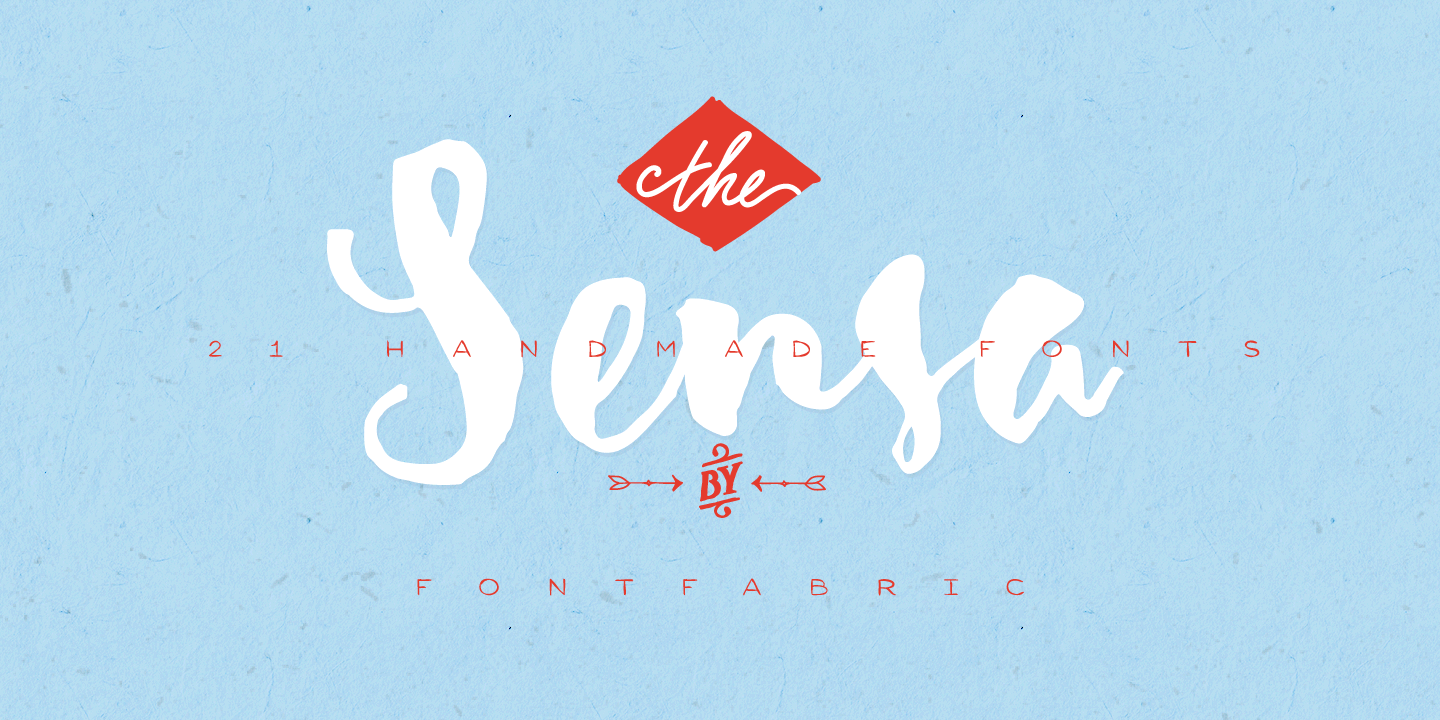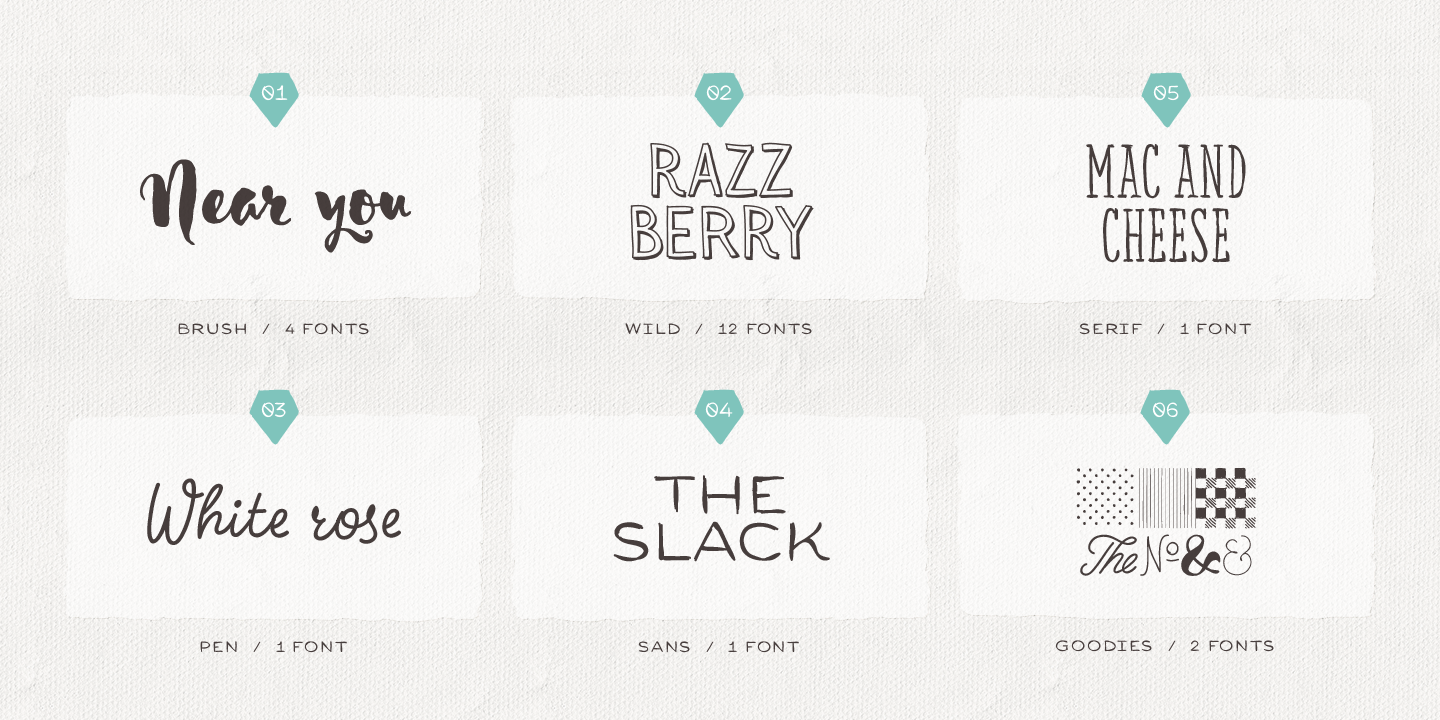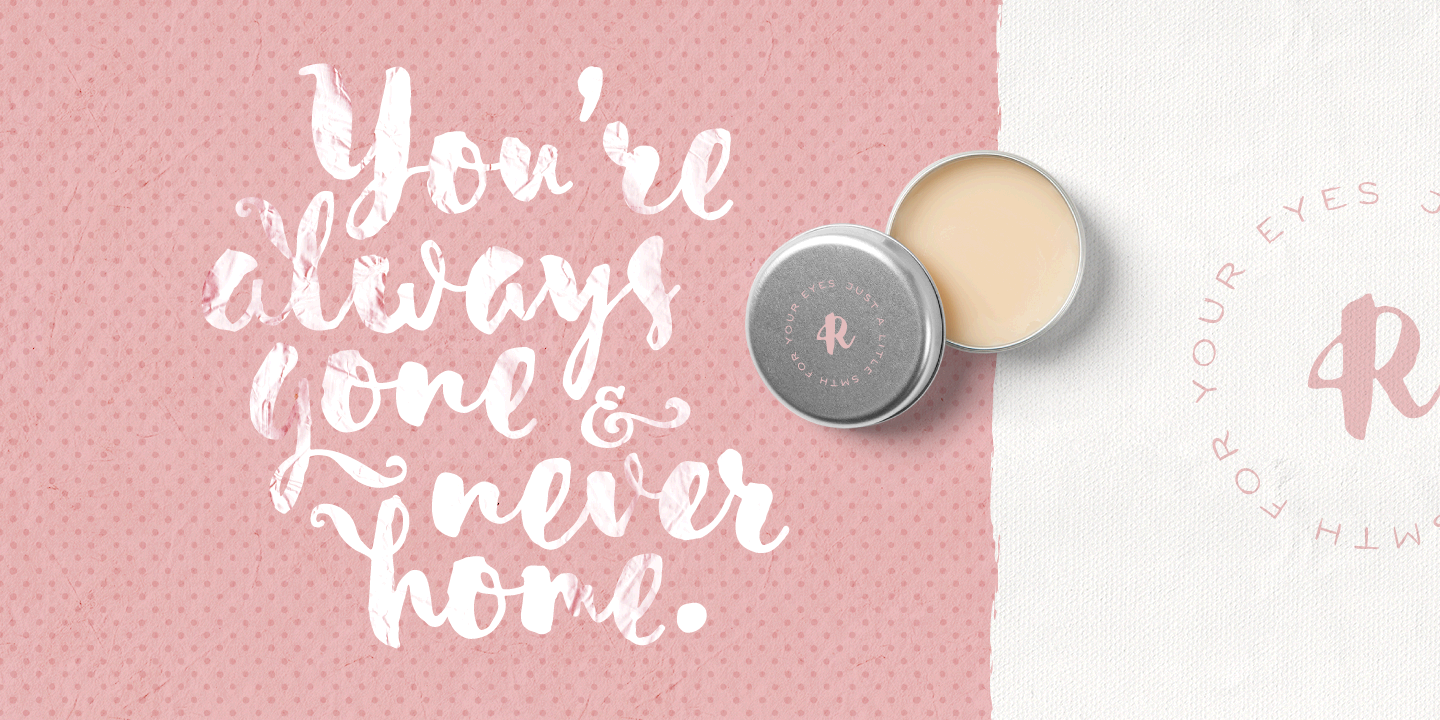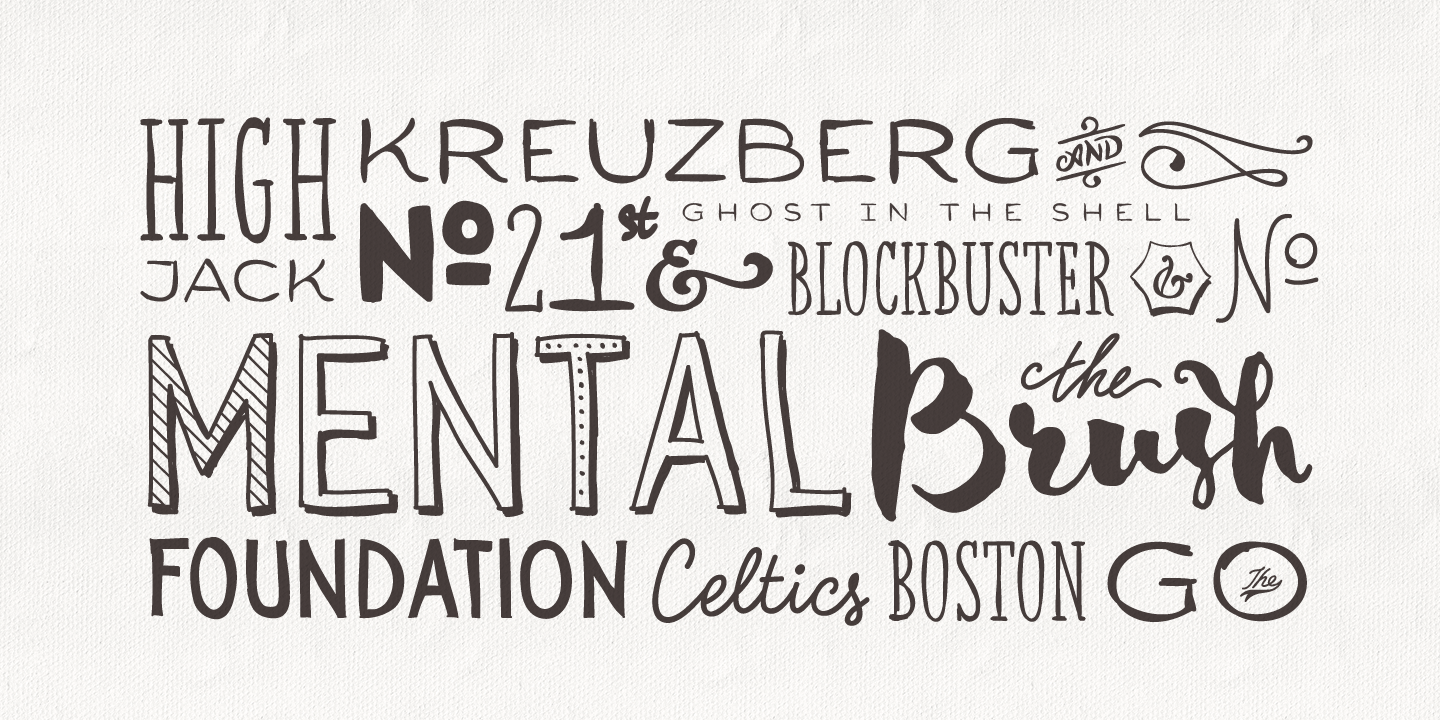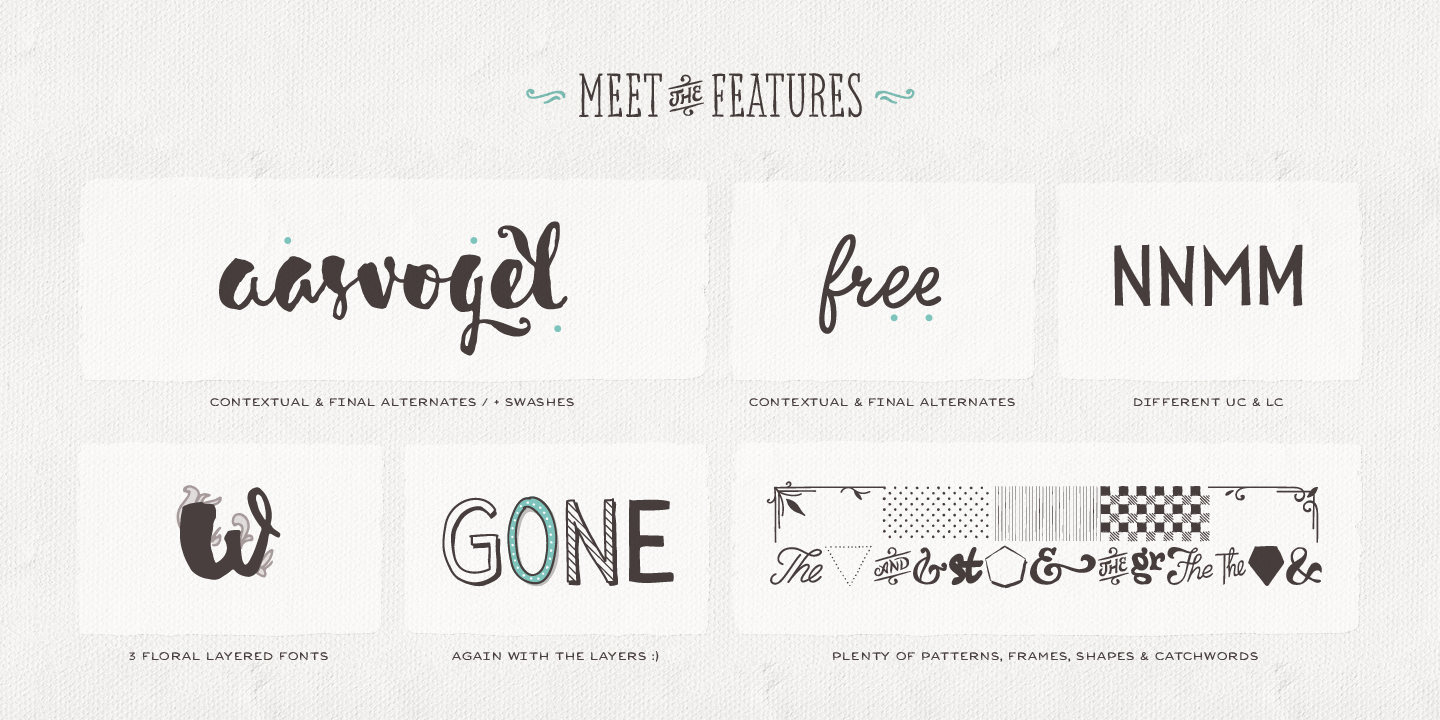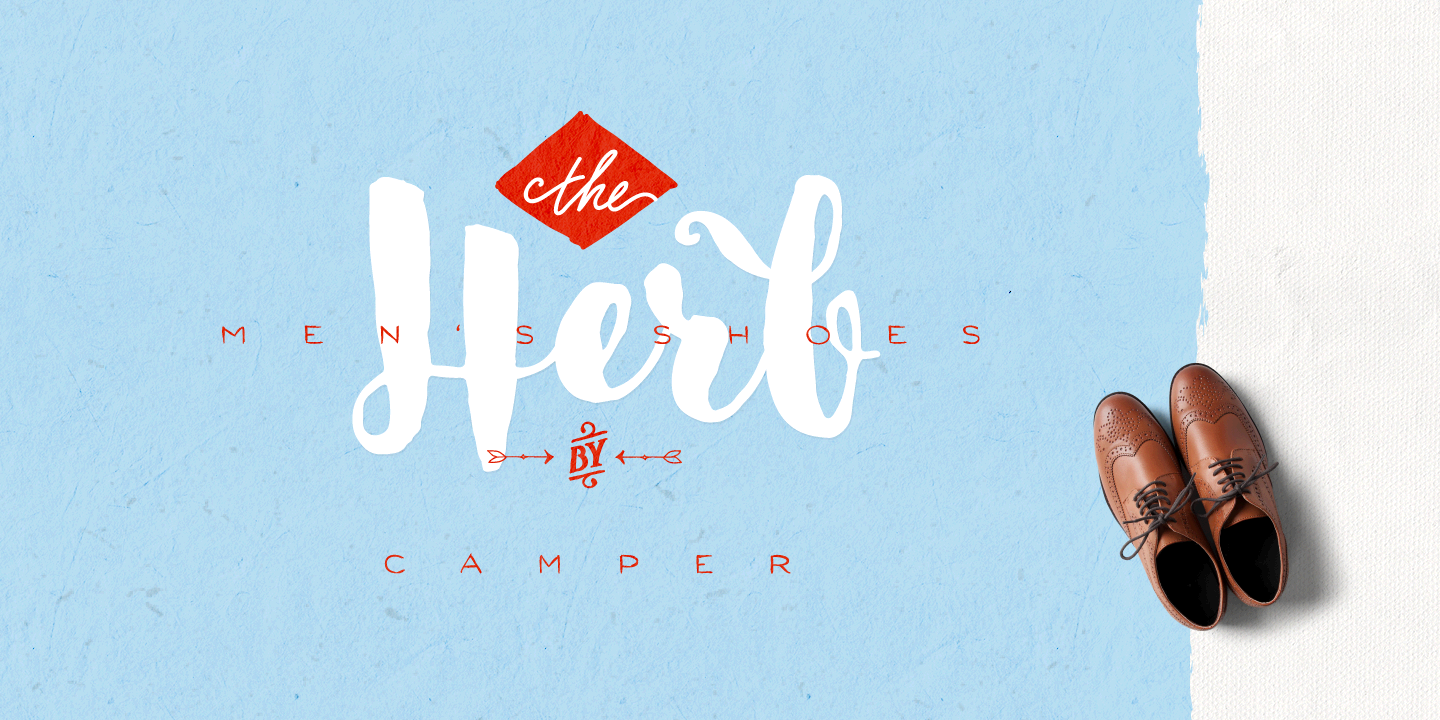
About the Sensa Font
About Sensa Font Family Sensa is a handmade font family consisting of 21 fonts, It is divided into 6 subfamilies, each contributing to its wide range of visual power – Sensa Brush, Sensa Pen, Sensa Wild, Sensa Sans, Sensa Serif and Sensa Goodies, Only your imagination is the limit, Pick any of the font as a leading one and the rest of the fonts can accompany it with ease
To work together in all possible combinations, all fonts in this package were created with that simple idea in mind, Sensa is applicable for almost every design project – from advertising, packaging, editorial and branding, to web and screen projects
For a beauty and tender sensation or for more male and strong communication – you have a wide selection, Designers: Radomir Tinkov, Svetoslav SimovPublisher: FontfabricFoundry: FontfabricDesign Owner: FontfabricMyFonts debut: Nov 10, 2015 Sensa